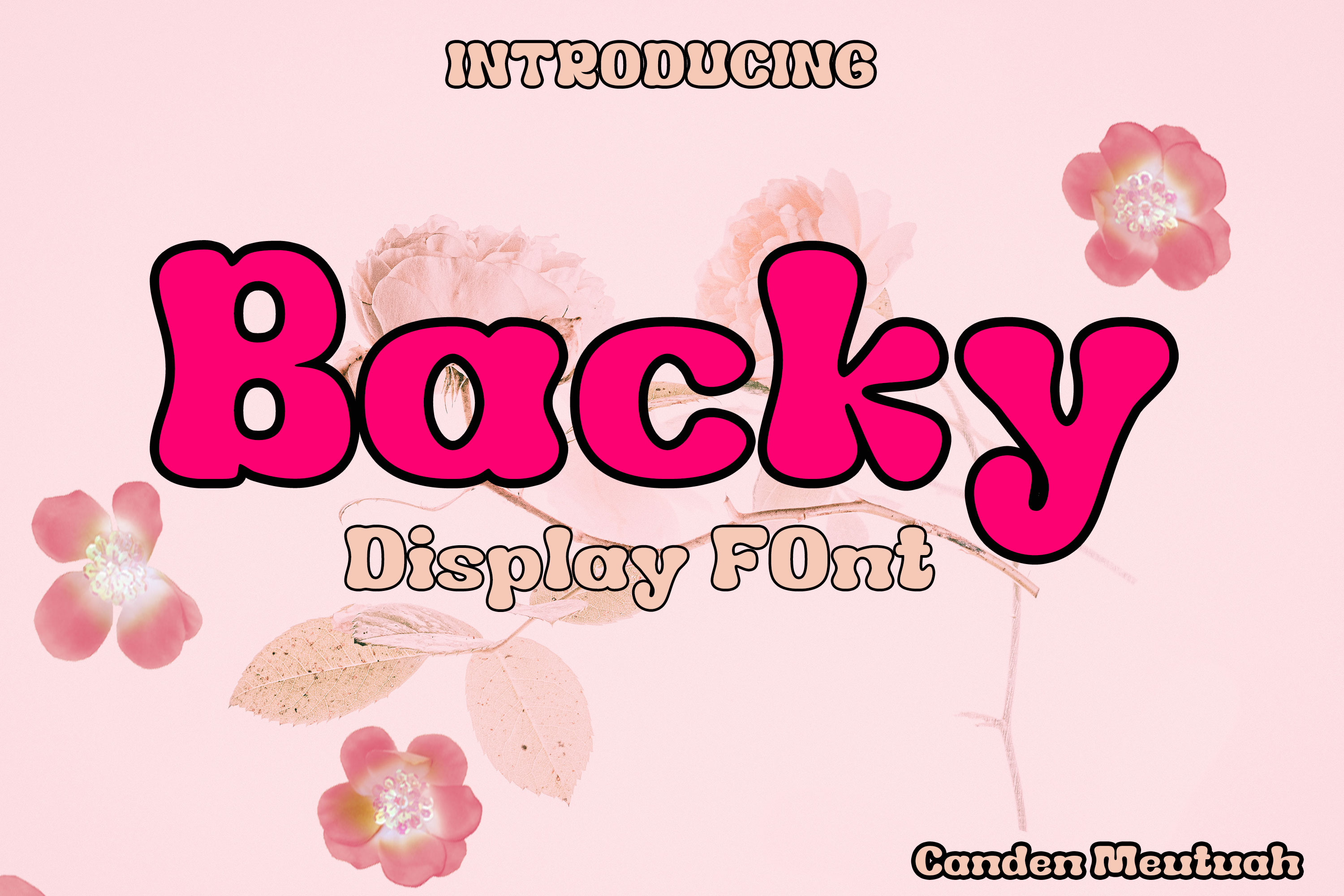
Backy Display Font
Introducing Backy Display Font is a simple, minimalist and neat Display Font. It can be easily adapted to a very large range of projects, such as advertising, titles, blogs, logos, branding, invitations, business cards and more! So add it to your creative ideas and watch how it makes it stand out! This font is equipped with a file. OTF, TTF, WOFF and are also used in various languages. you will not be disappointed with the results.